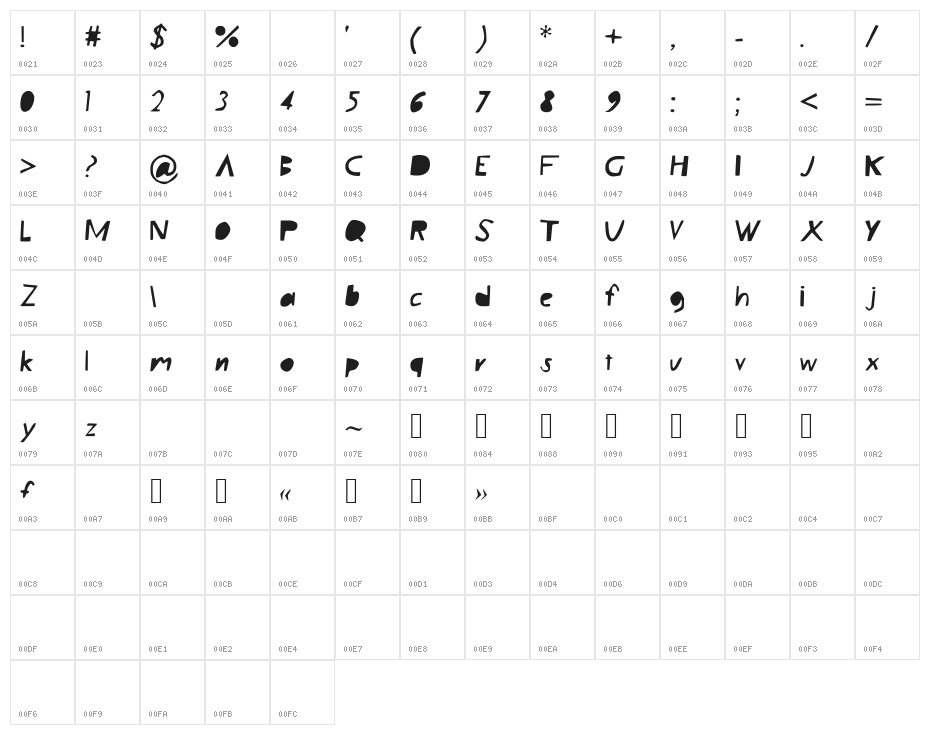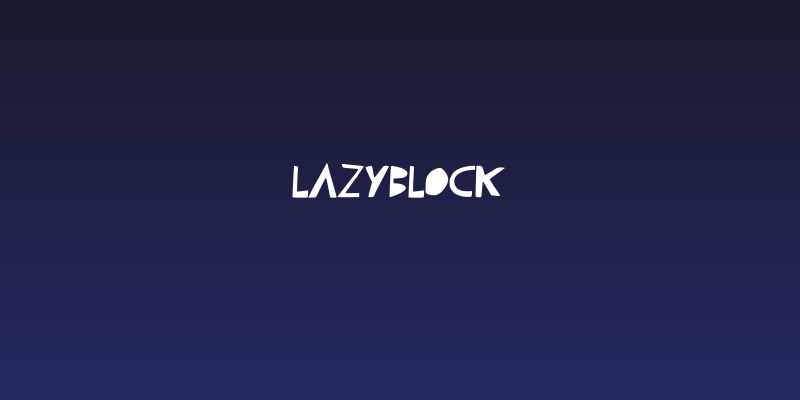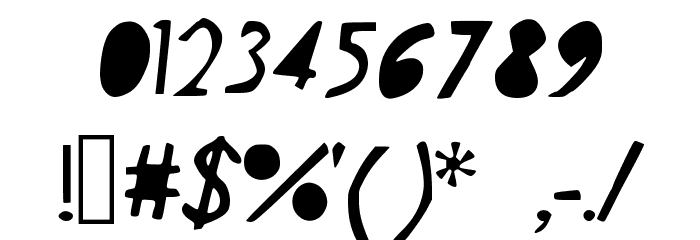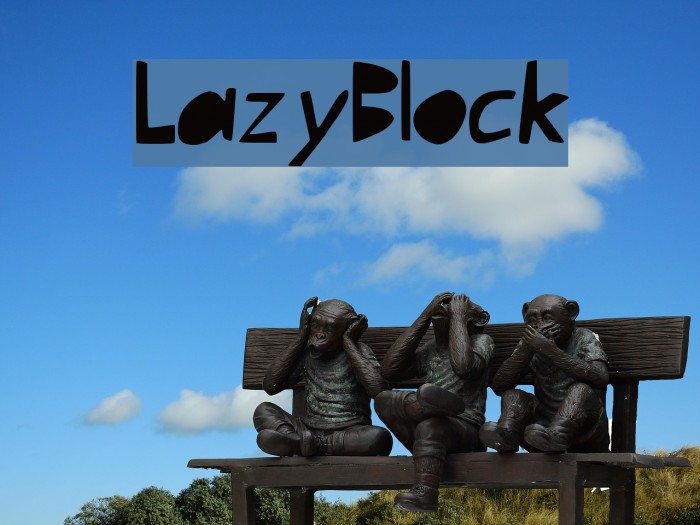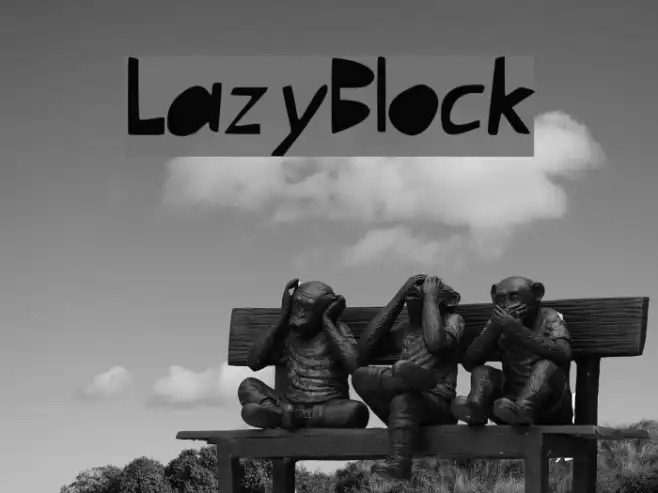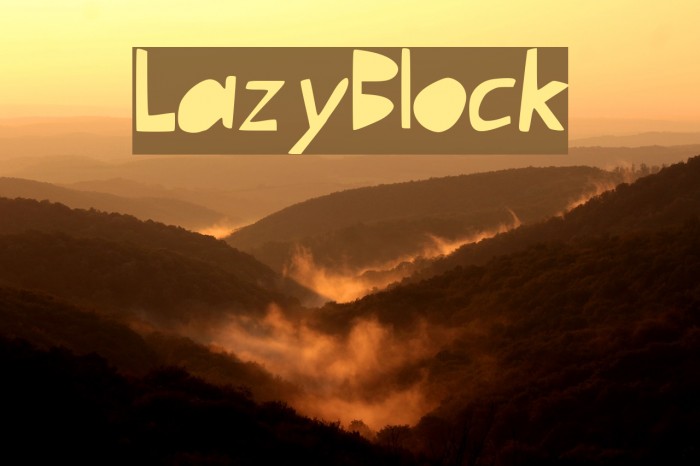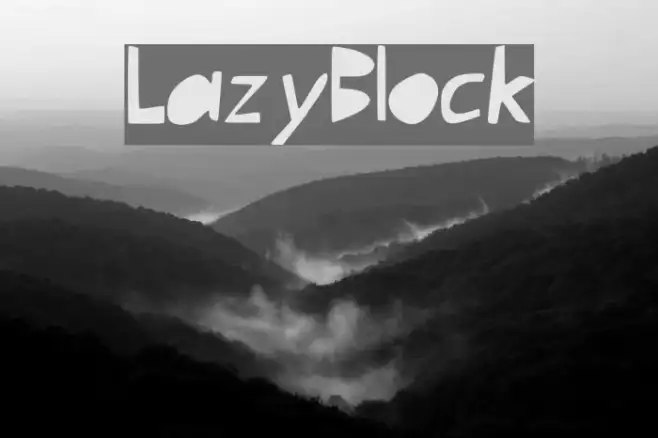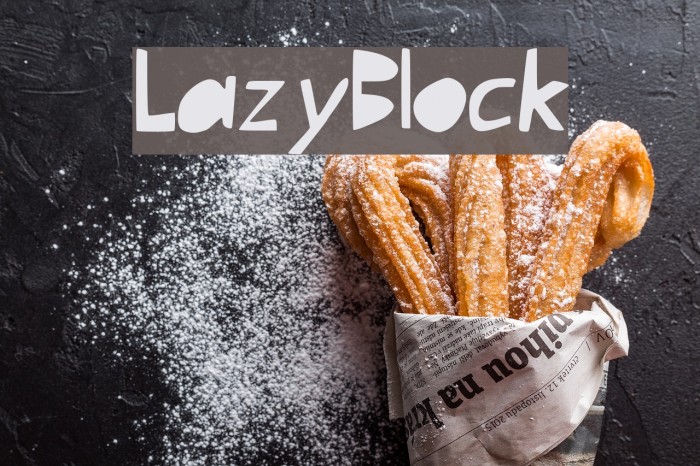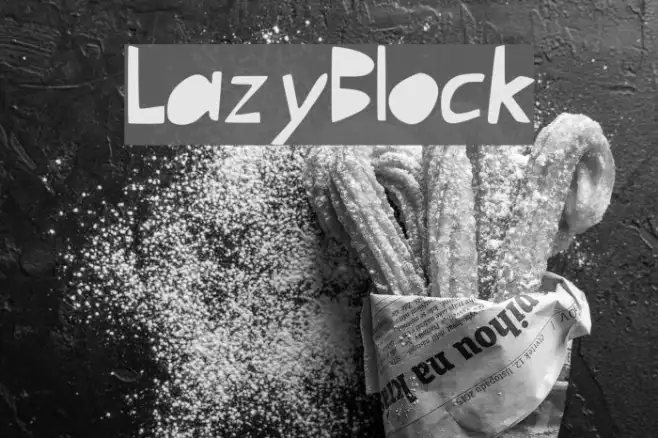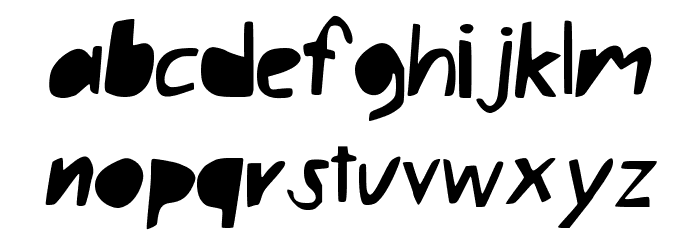
LazyBlock Font
LazyBlock Description
This playful and bold font features a unique, hand-drawn style with irregular shapes and a whimsical appearance. The uppercase letters are characterized by their thick, uneven strokes and varying widths, giving them a lively and dynamic feel. The lowercase letters maintain this playful aesthetic, with some characters exhibiting exaggerated curves and angles. The numbers are similarly bold and quirky, each with its own distinctive flair. Special characters are creatively designed, adding to the font's overall charm. This font's irregularities and boldness make it stand out, perfect for projects that require a touch of fun and creativity.
| Proposed Projects | Ideal for children's books, playful branding, creative posters, and fun social media graphics. |